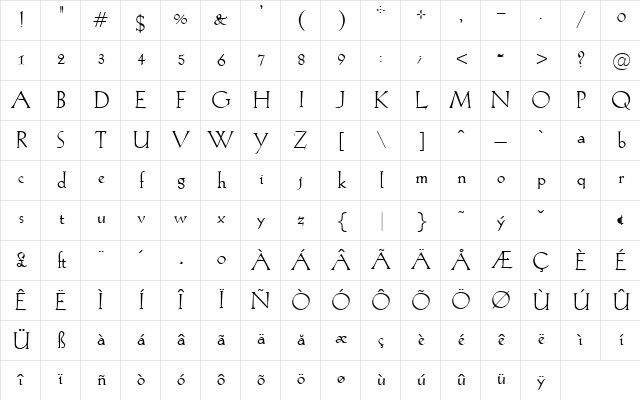
Turnham Regular
Design Context for Turnham
Turnham is a composed and adaptable typeface that performs quietly and consistently across a wide range of design contexts.